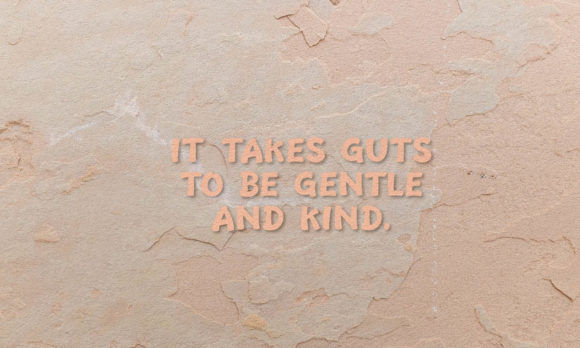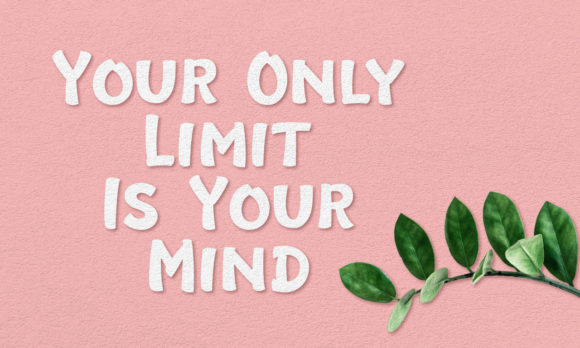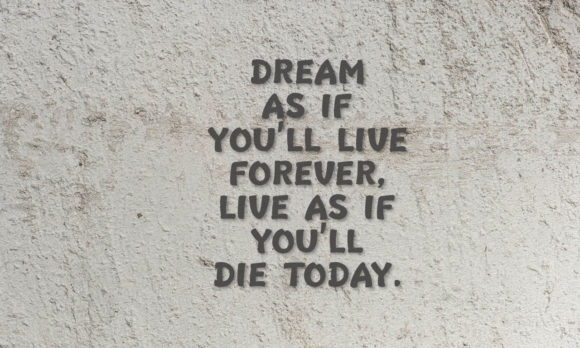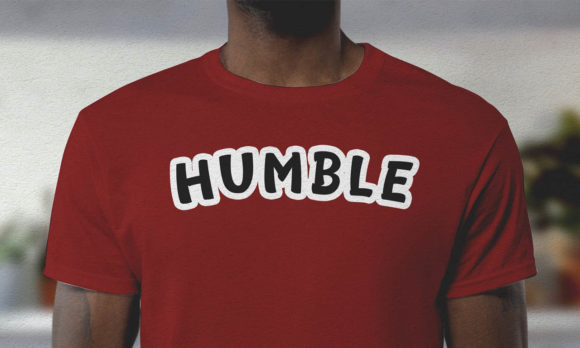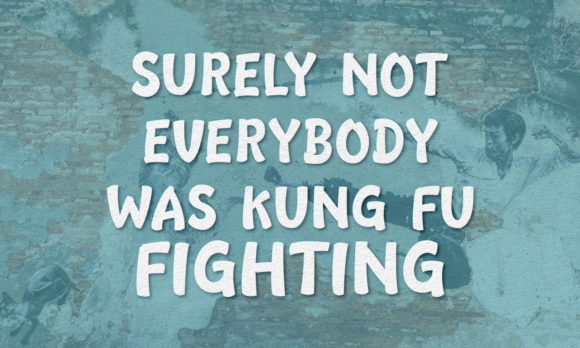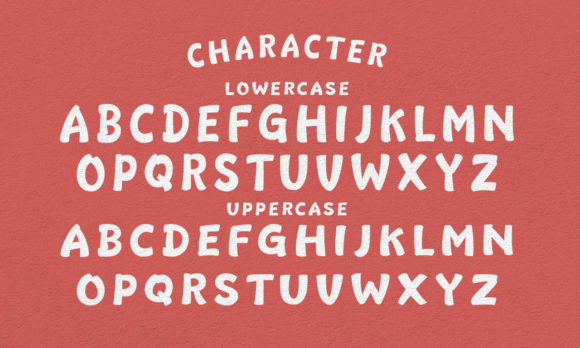
Introduction to Bashing Font
Bashing is a fun and thick lettered display font.
This outlined font looks really neat and it will most certainly enhance a wide range of creations .
Key Features of Bashing Font